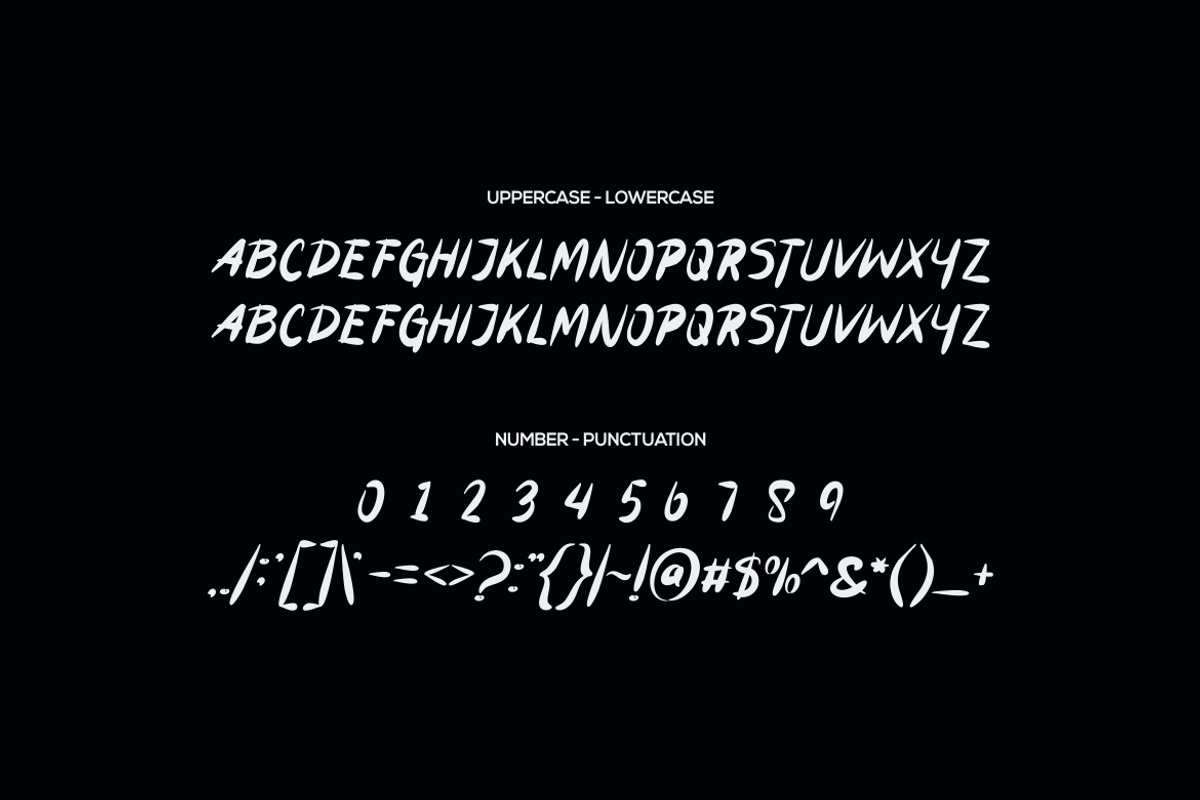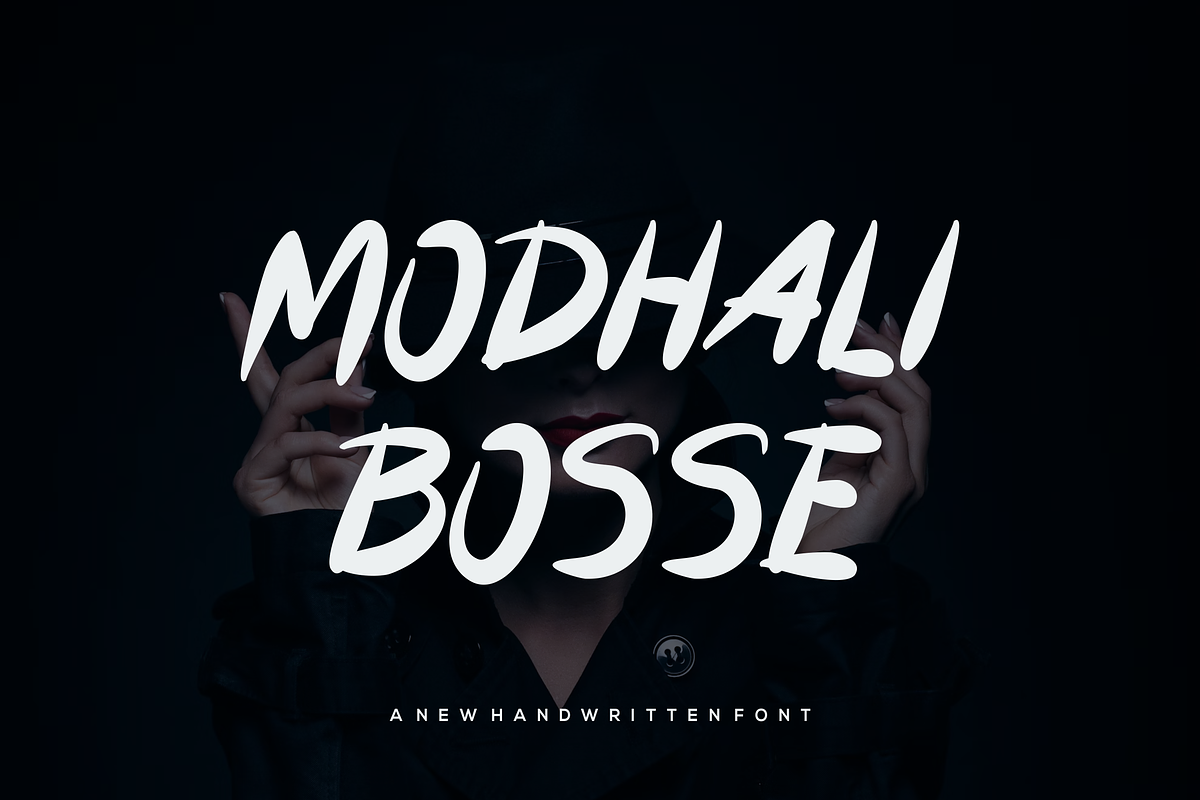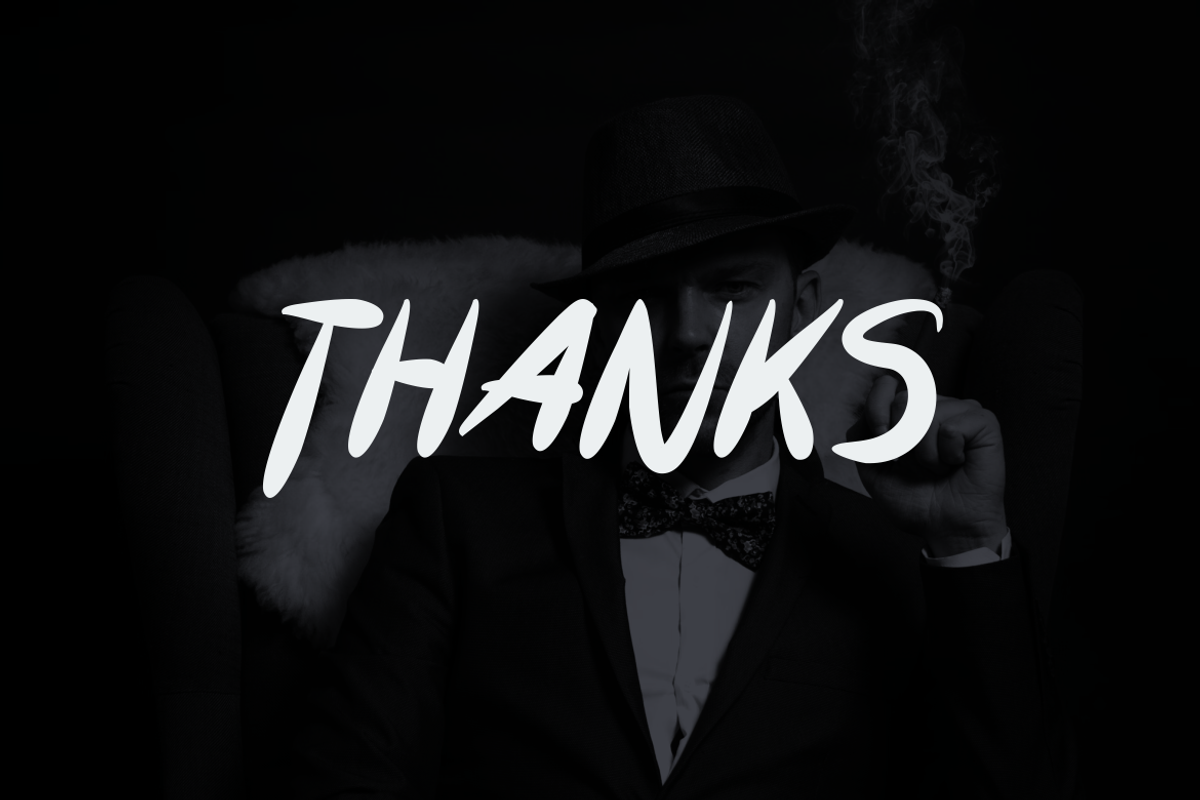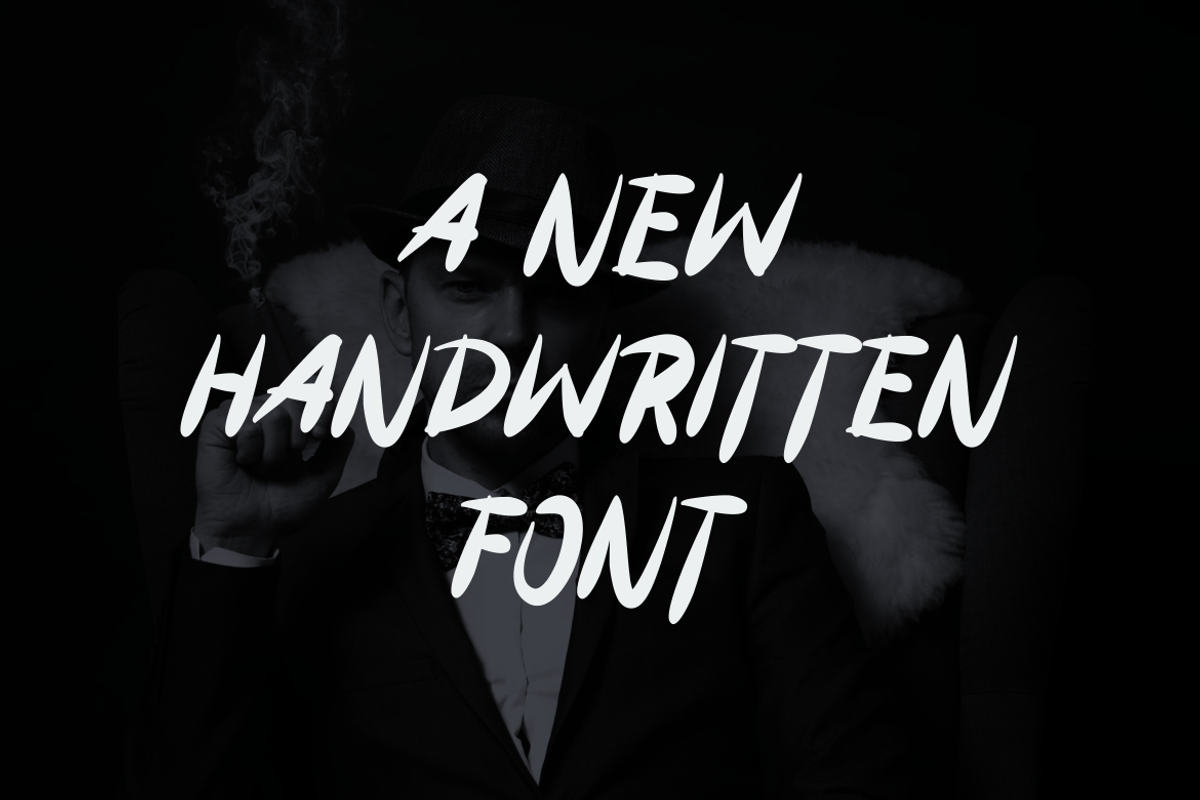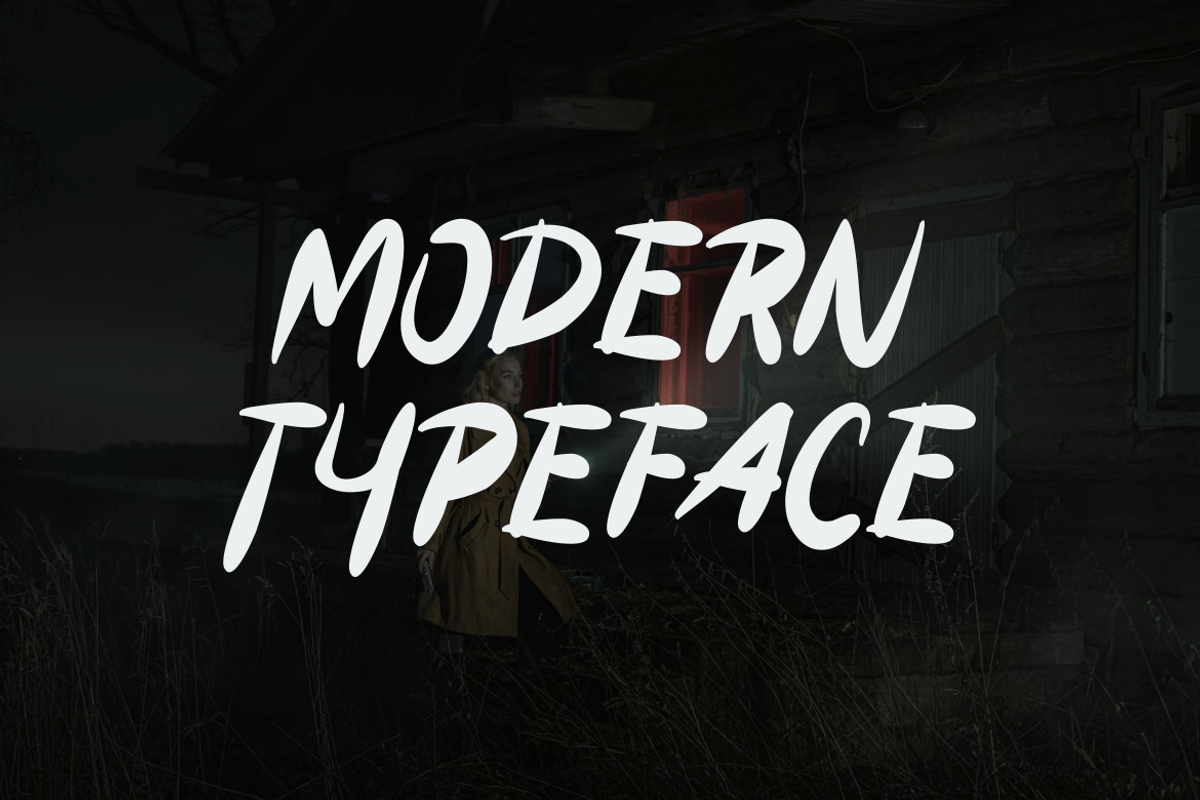
Modhali Bosse - Font
- Modern Font is a bold and authentic display font. The font is suitable for any branding project like logo, t-shirt printing,, and many more. outstanding in a wide range of contexts.